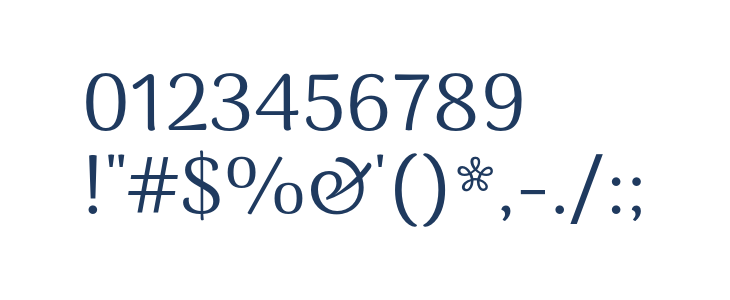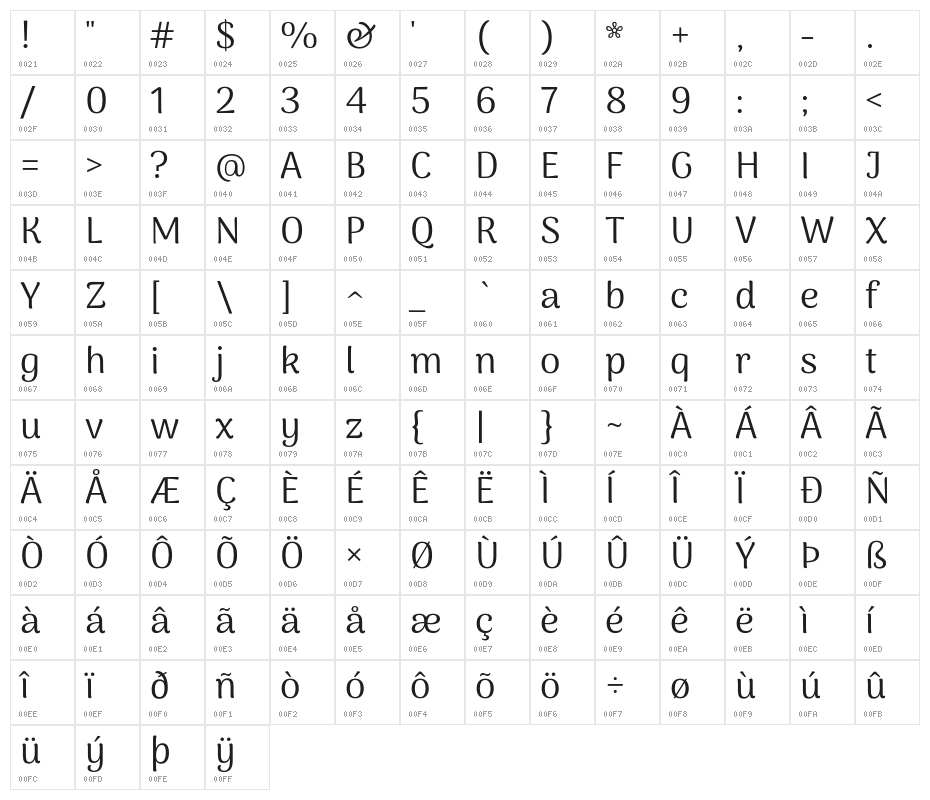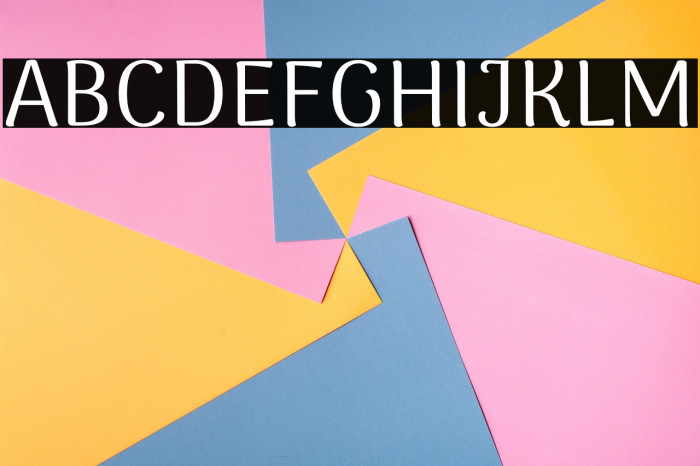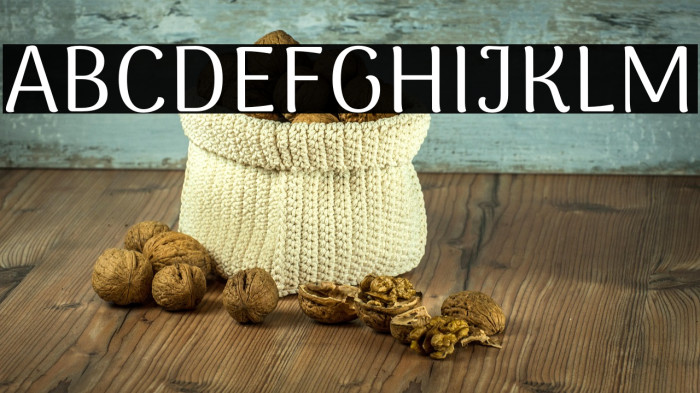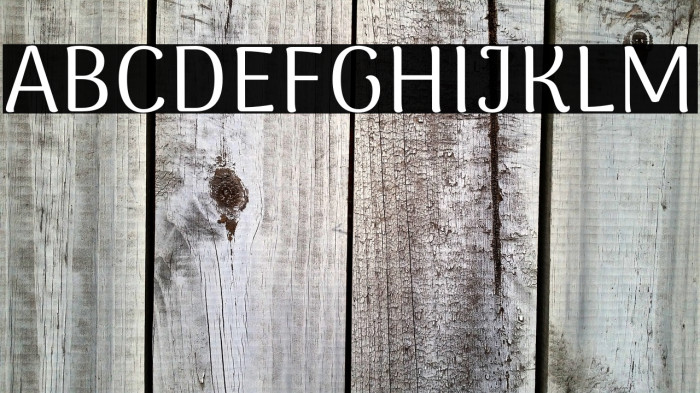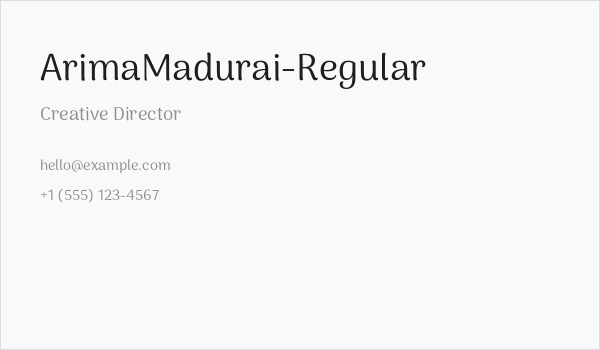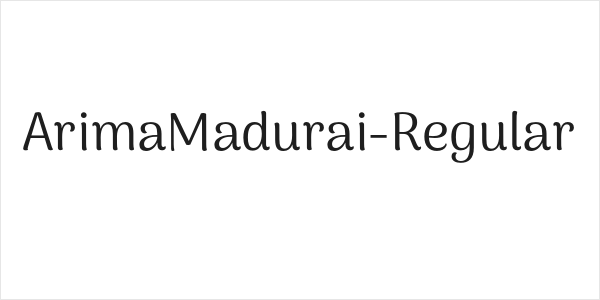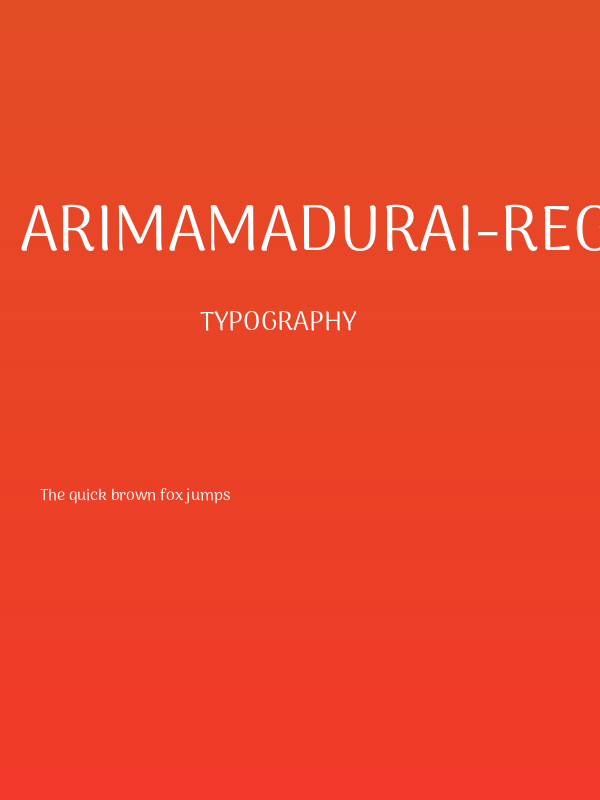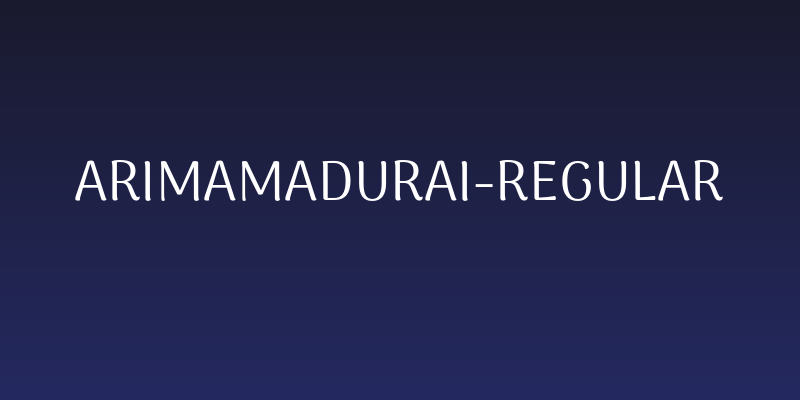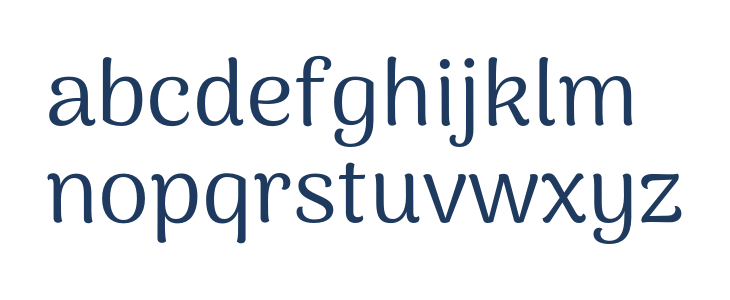
ArimaMadurai-Regular Font
ArimaMadurai-Regular Description
This font features a clean and modern design with rounded edges, giving it a friendly and approachable appearance. The characters are well-balanced, with a consistent stroke width that maintains readability across different sizes. The uppercase letters have a slightly taller height compared to the lowercase, which adds a touch of elegance. The numerals are clear and distinct, making them suitable for various applications. Special characters are included, enhancing its versatility for different contexts.
| Proposed Projects | Ideal for branding, web design, and user interfaces due to its readability and modern aesthetic. |